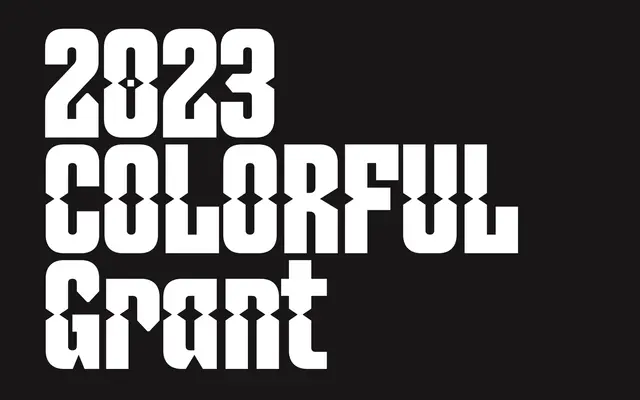
Colorful
Vocal Type · Tré Seals, Rich Tu, Sunday Afternoon · 2023
A display typeface shaped by the visible light spectrum, created for the COLORFUL grant programme supporting young BIPOC creatives.
Designed in collaboration with Sunday Afternoon for the third year of the COLORFUL identity, the letterforms take their cues from the diagram of the visible light spectrum as a formal metaphor for a breadth of perspectives. Proceeds from sales go directly to the COLORFUL grant programme run by Rich Tu and The One Club for Creativity. The conceptual rigour behind the forms gives it a distinctive voice beyond a typical identity commission.
The typeface draws its letterforms from the shape of the visible light spectrum, giving it a conceptually driven geometric quality suited to display use rather than text setting.